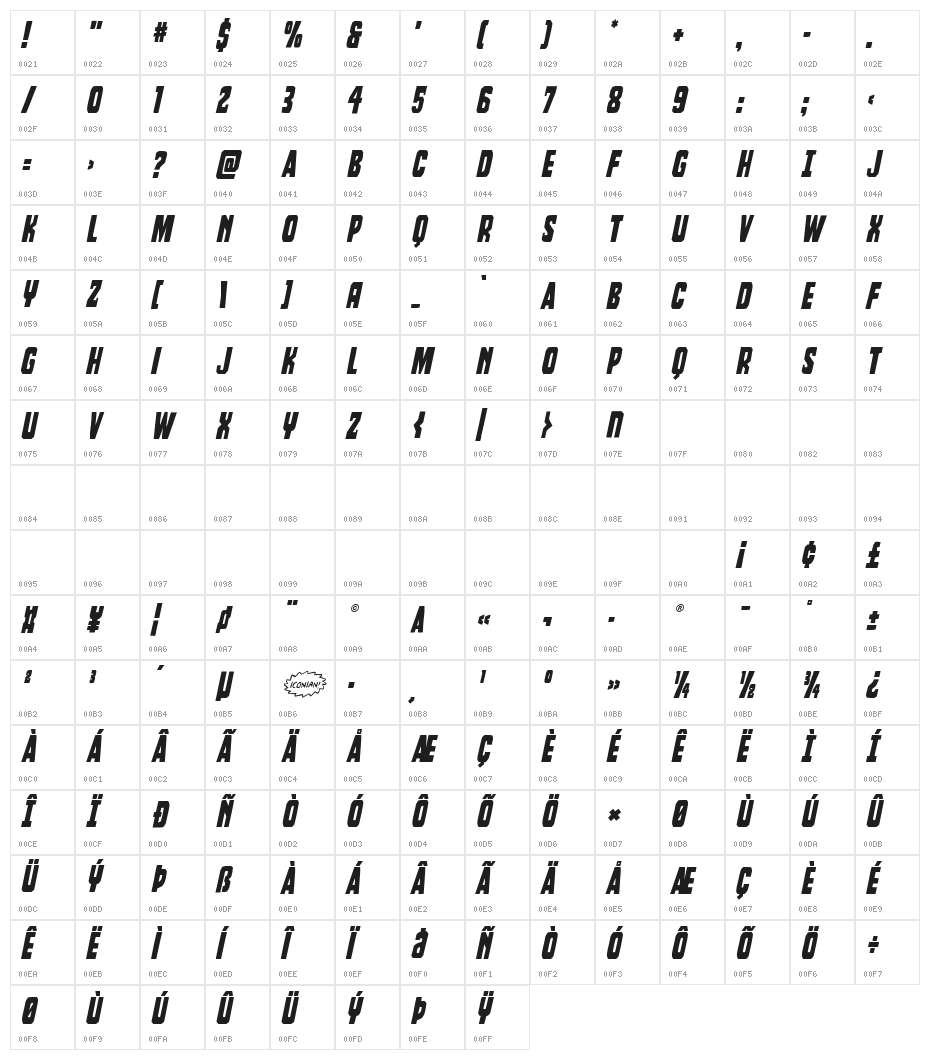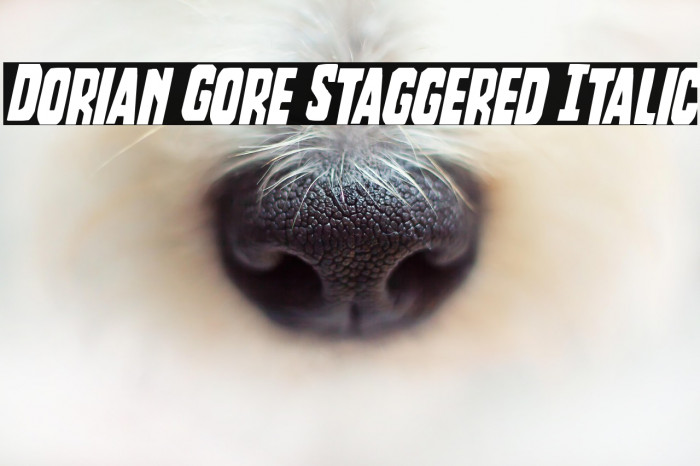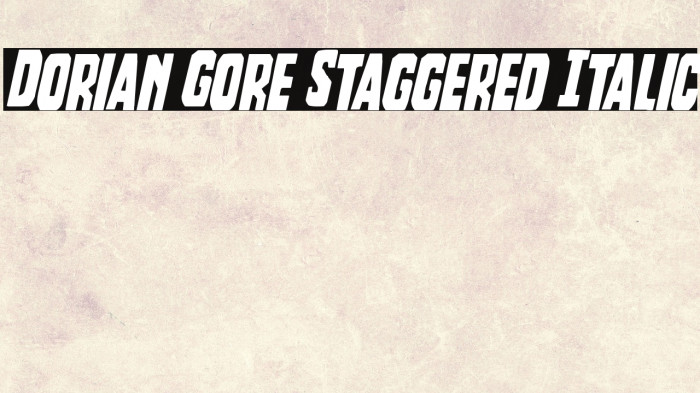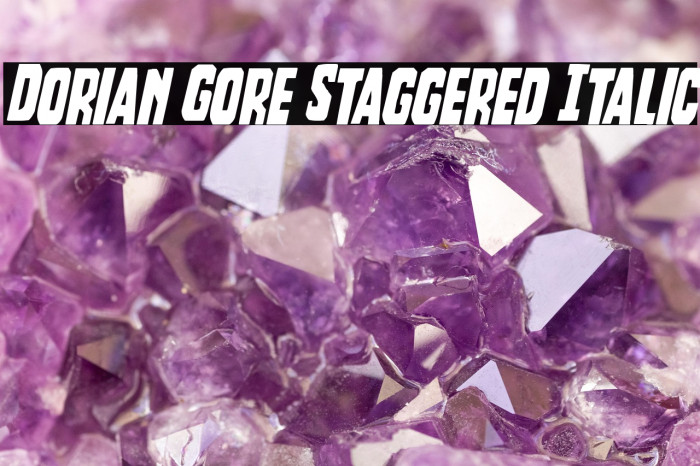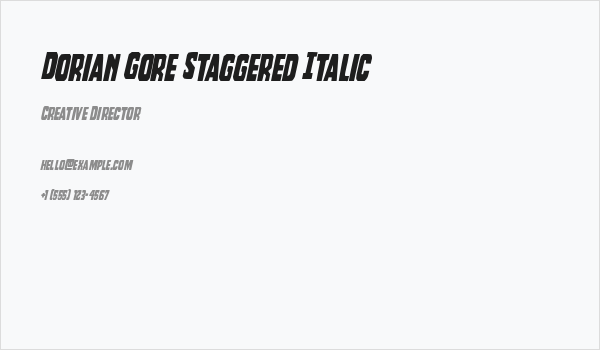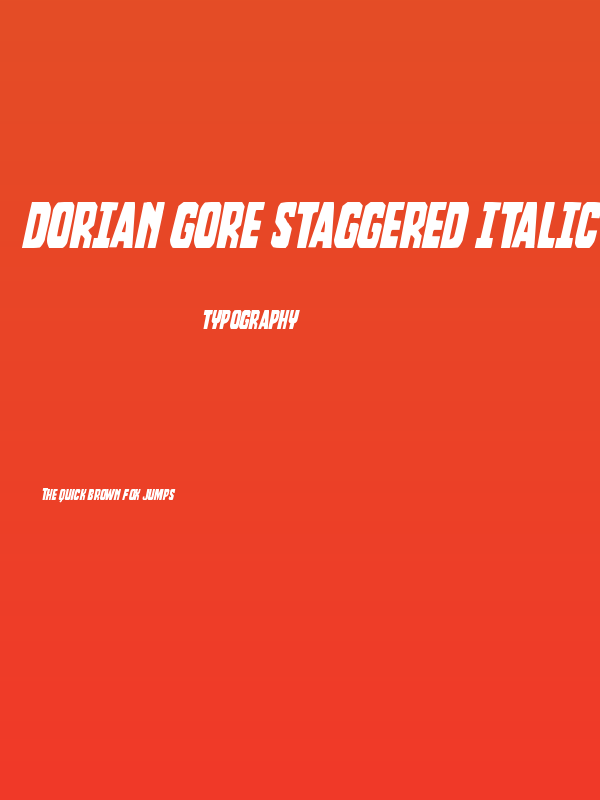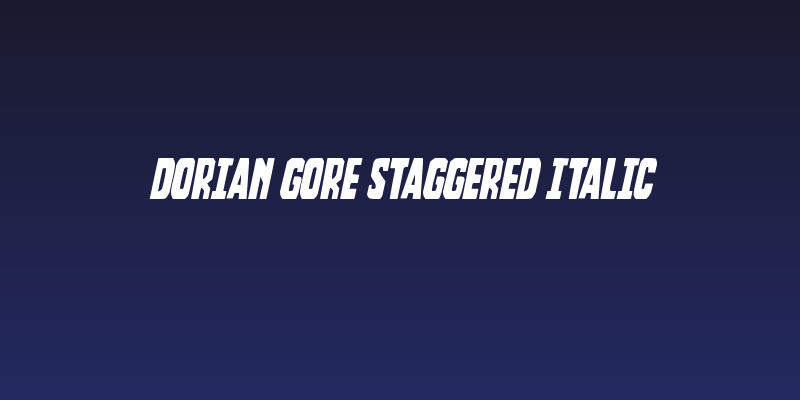
Dorian Gore Staggered Italic Font
Dorian Gore Staggered Italic Description
This font features a bold, italicized style with a staggered, dynamic appearance. The characters are heavily slanted, giving a sense of movement and urgency. The strokes are thick and consistent, contributing to a strong visual impact. The uppercase and lowercase letters maintain a uniform width, while the numbers and special characters follow the same bold and italicized design. This font is highly legible and commands attention, making it suitable for impactful designs.
| Proposed Projects | Ideal for sports branding, action movie posters, dynamic advertisements, and any project requiring a bold, energetic typeface. |